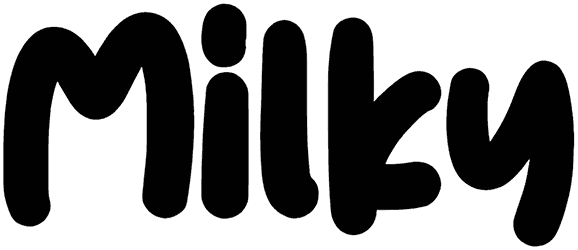
Milky Font
You know it, of course, if you run a cartoonish design or are interested in fun and cool designs for children! Milky, as a cartoon font with a friendly and cozy outward appearance, appears to motivate any audience to prefer it.
This script font comes with a complete set of the alphabet, so you need nothing to invent. With this handwritten font’s curly lines, bringing amazing feedback to blow your viewer’s minds is certain.